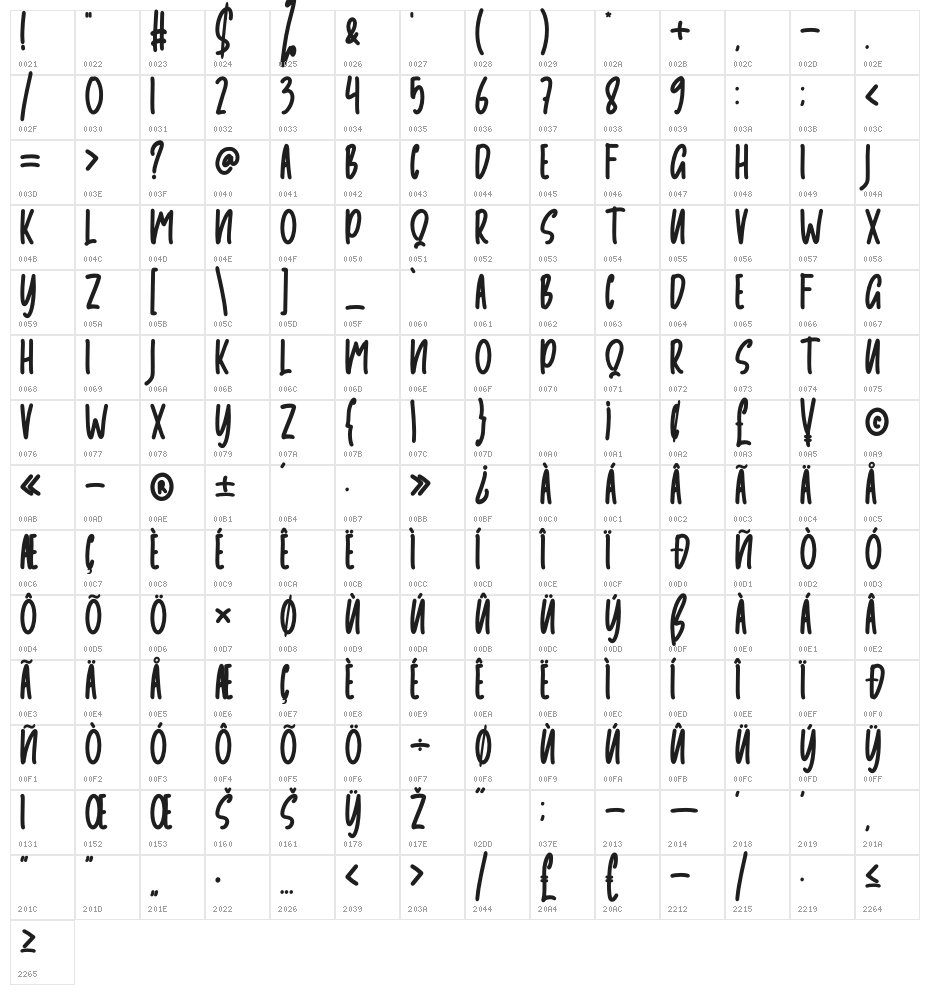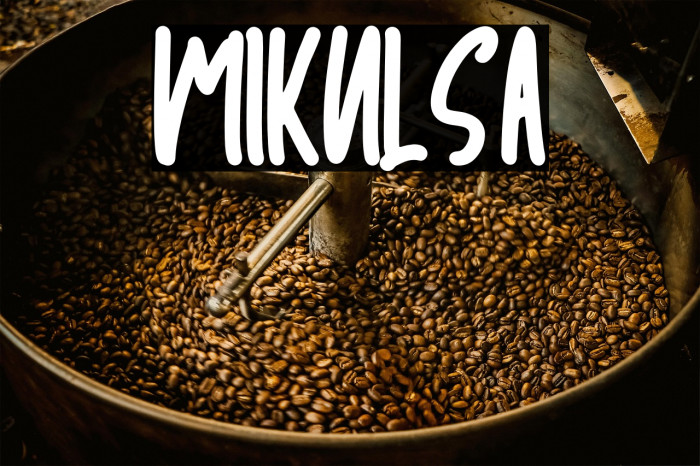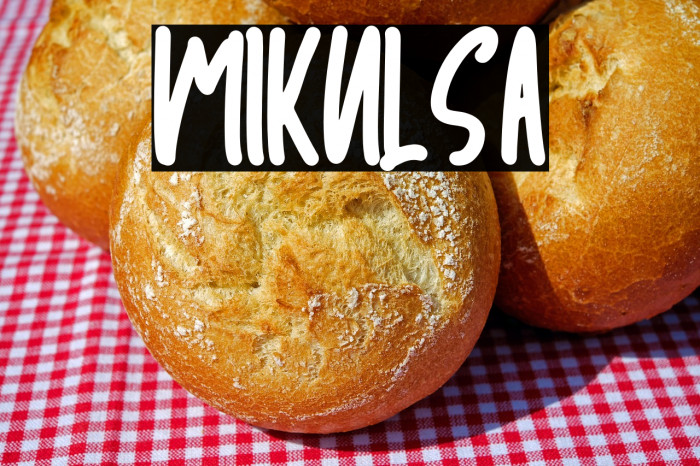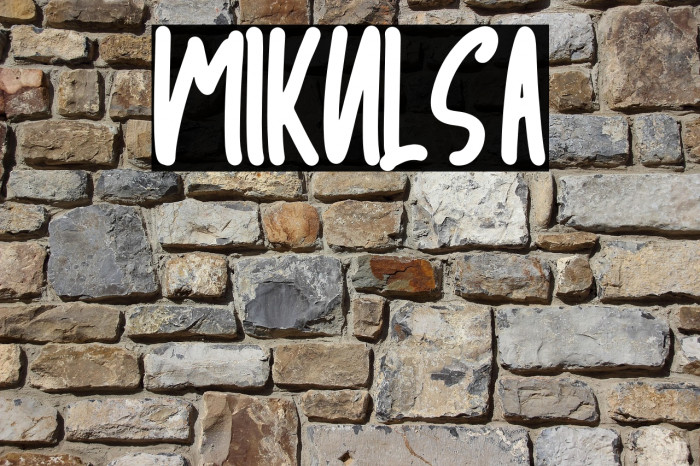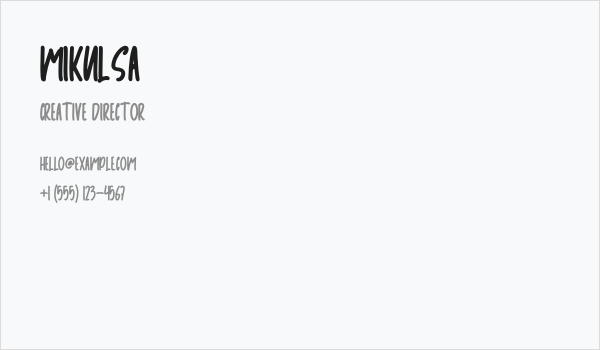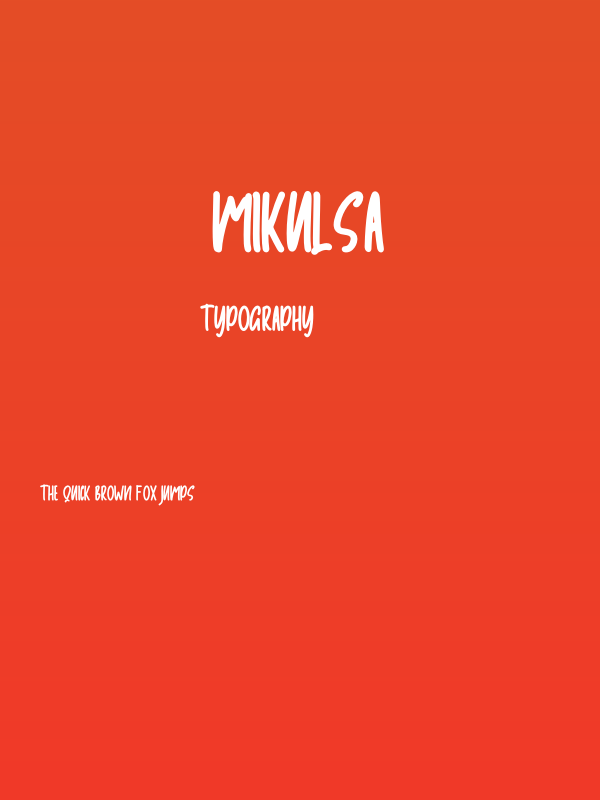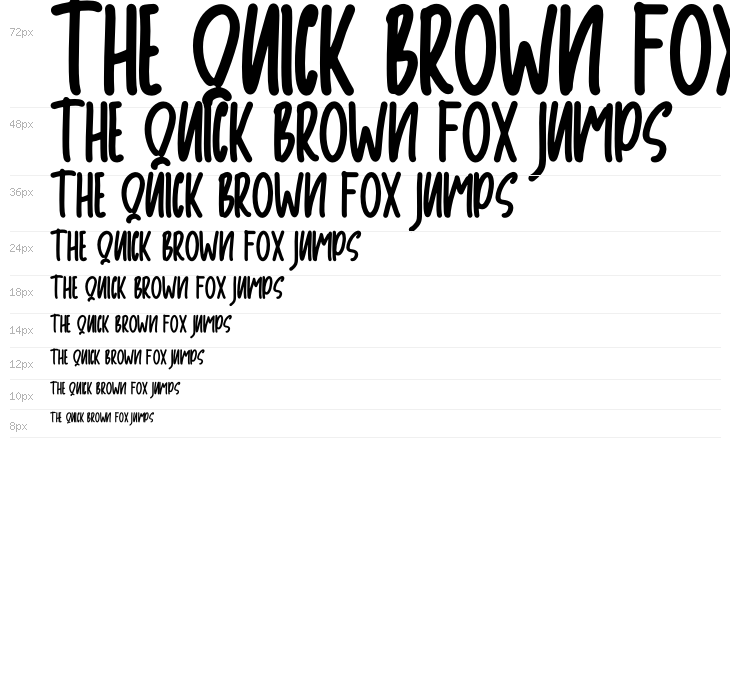
Mikulsa Font
Mikulsa Description
A bold, handwritten font with a playful and casual style, featuring rounded edges and a slightly condensed appearance.
| Use Case | Headlines, Informal text, Branding |
| Proposed Projects | Greeting cards, posters, informal branding. |